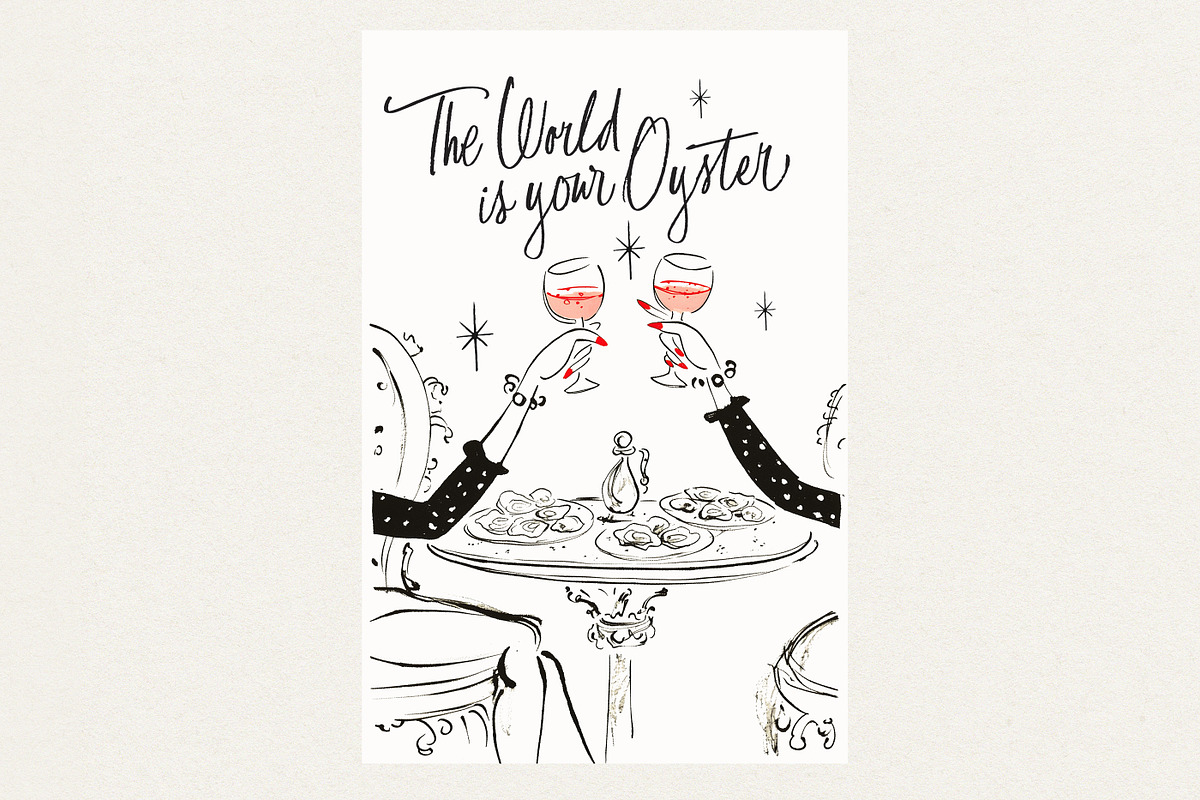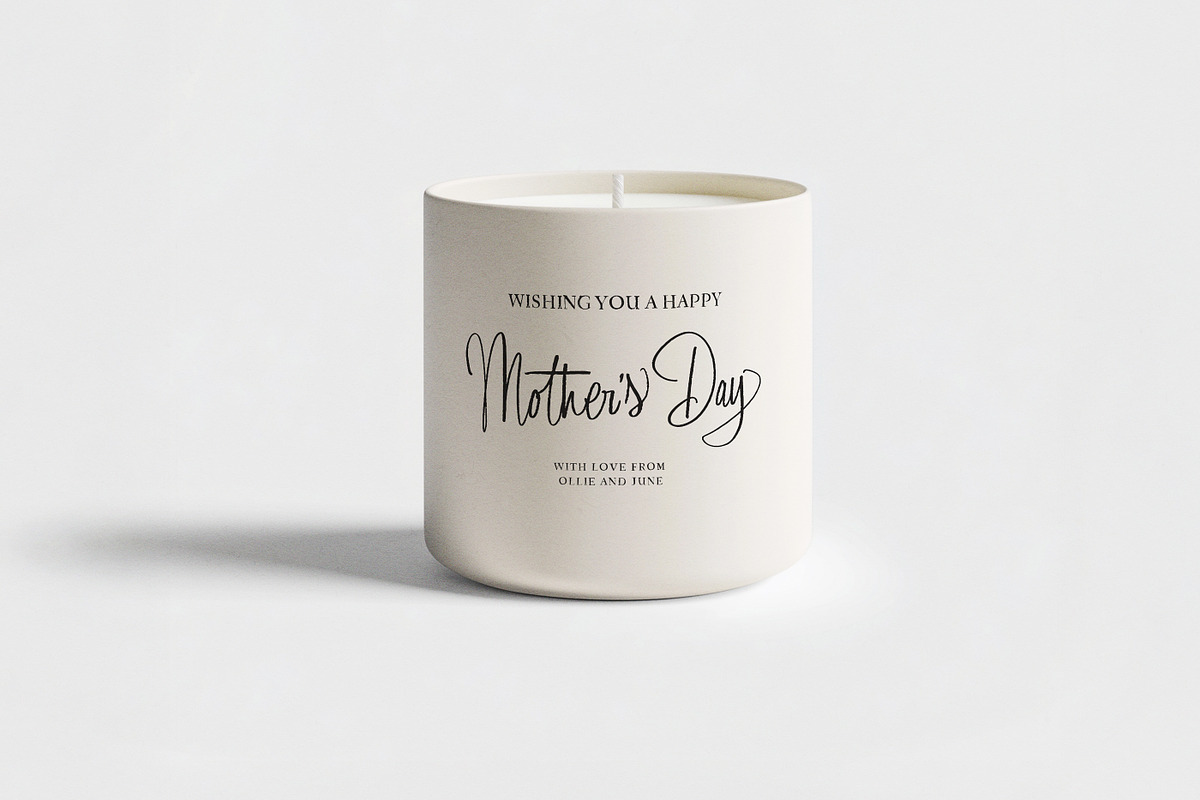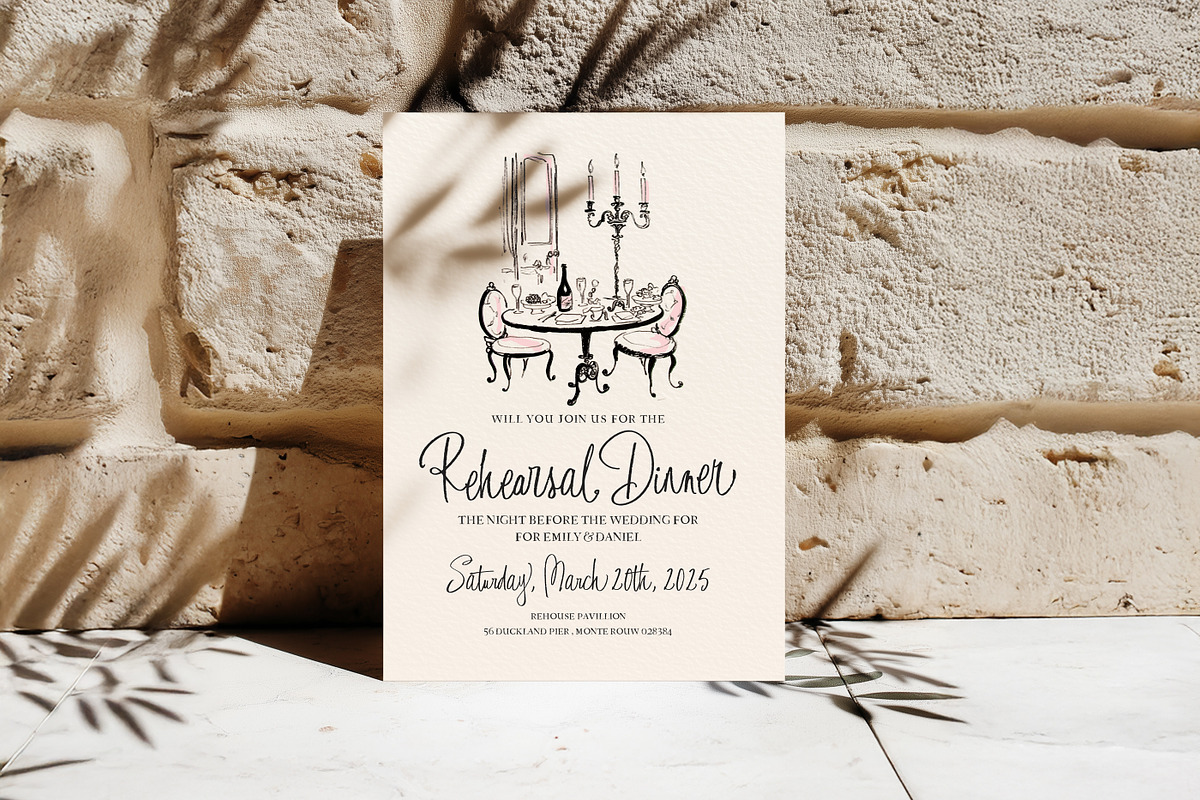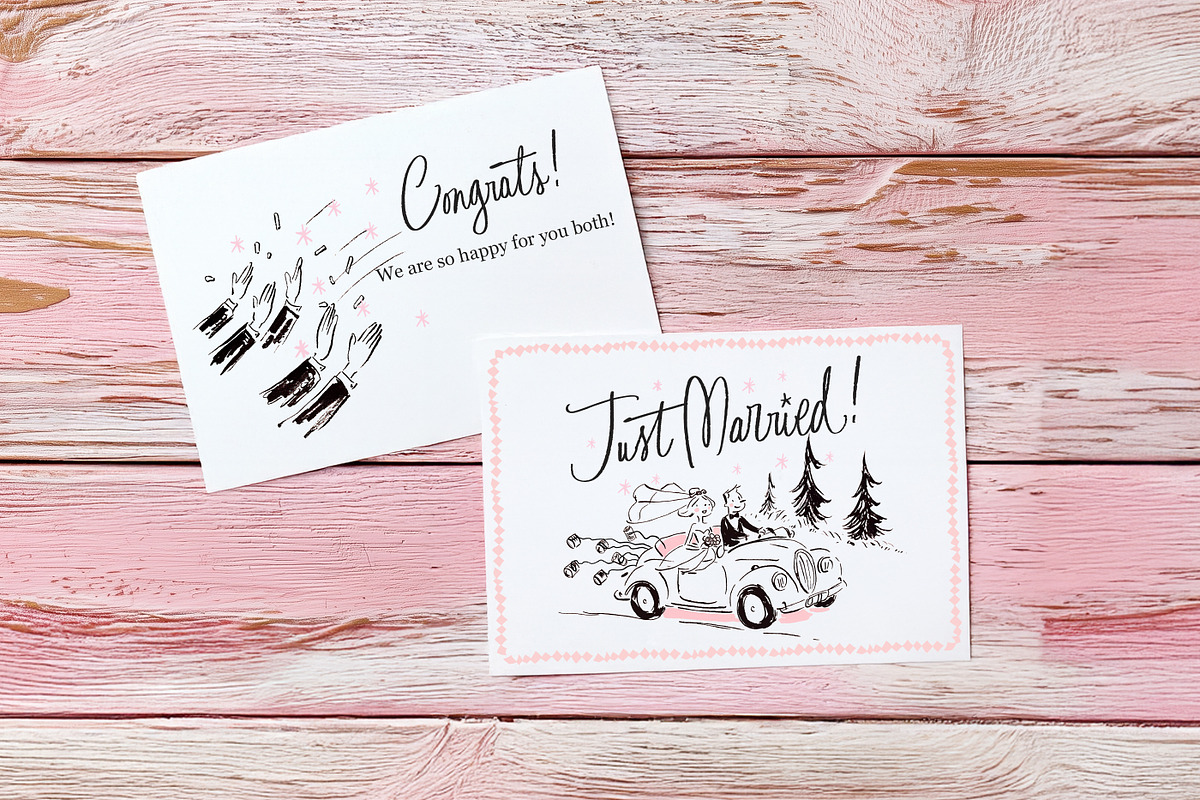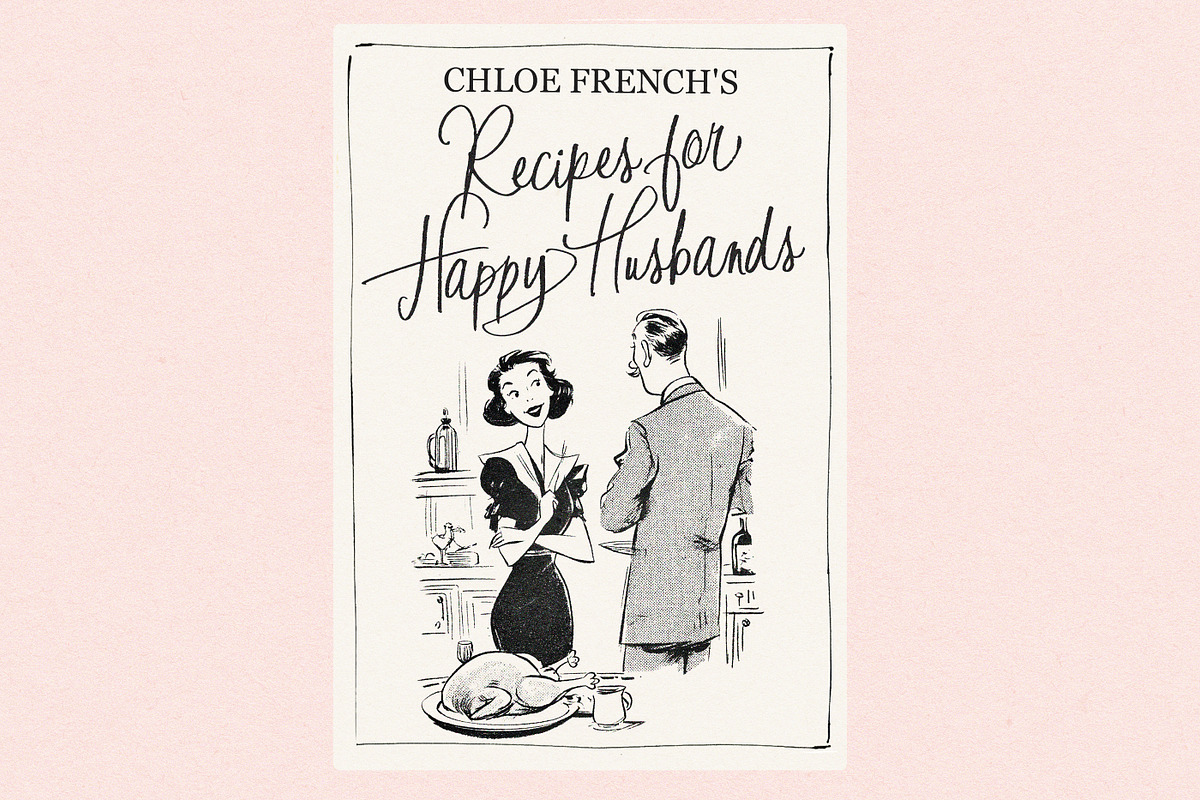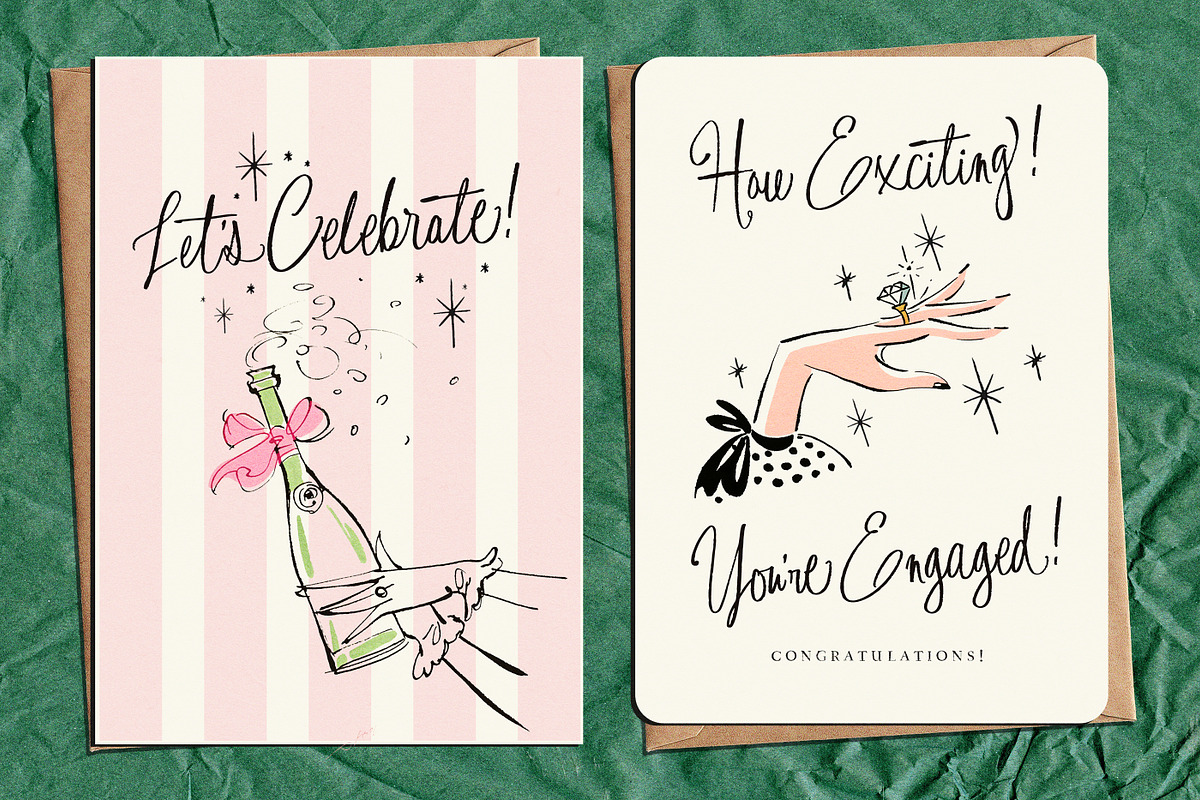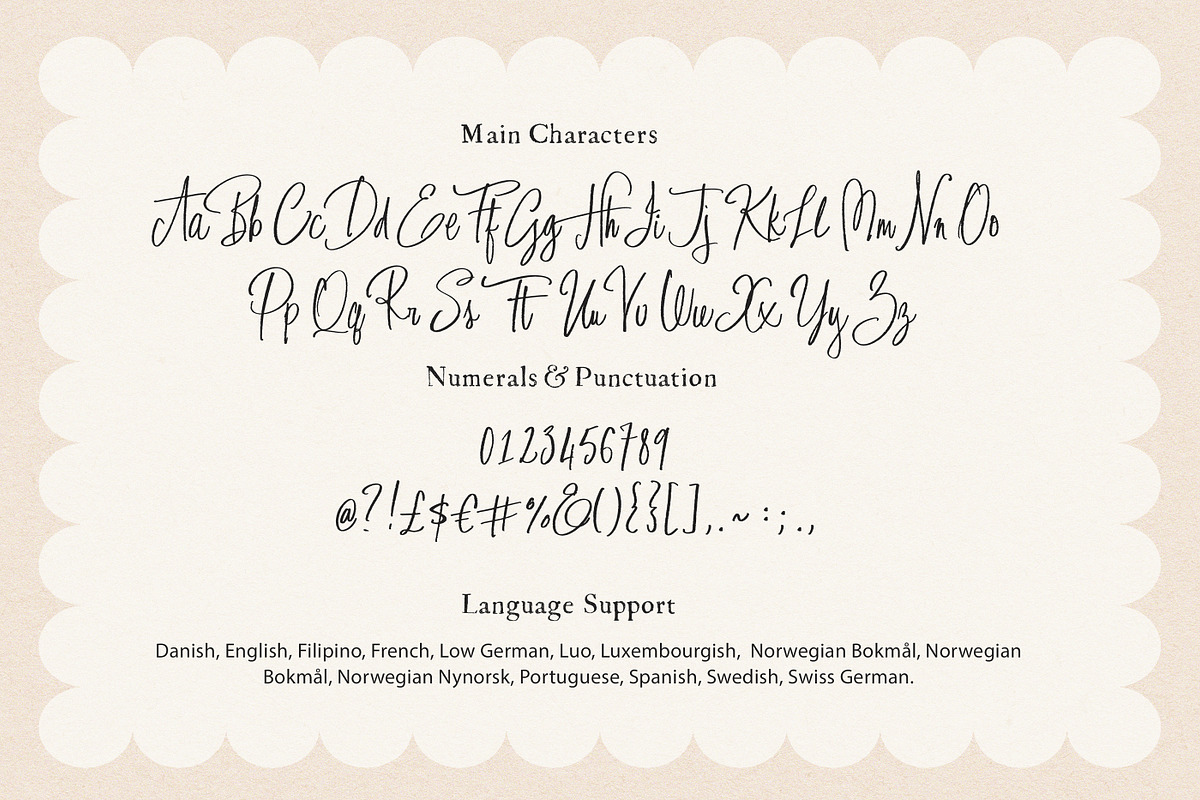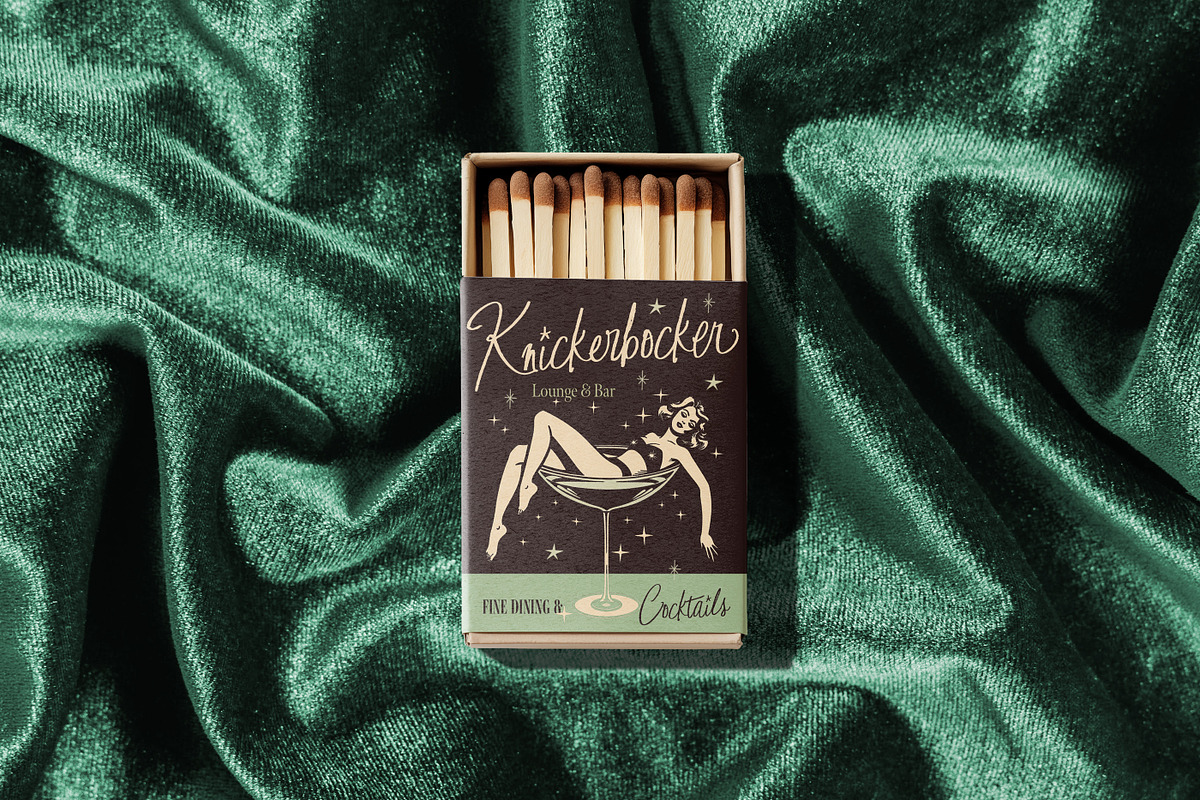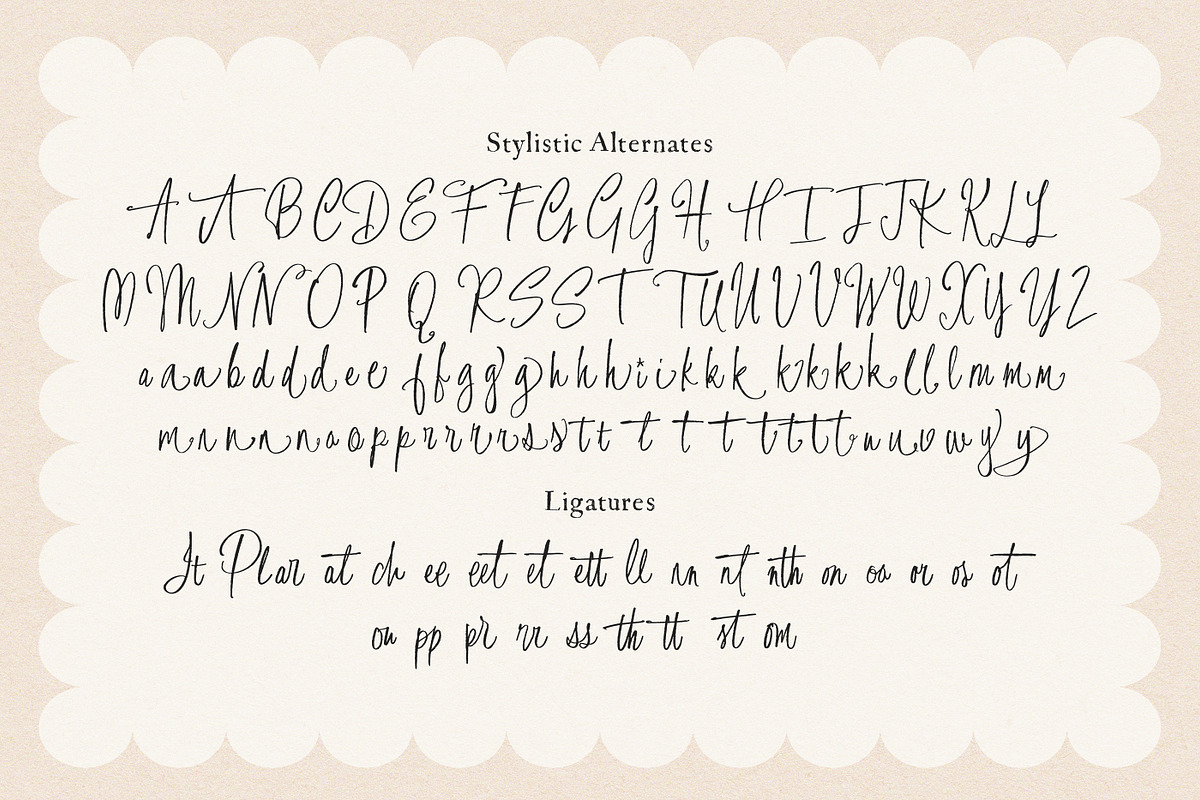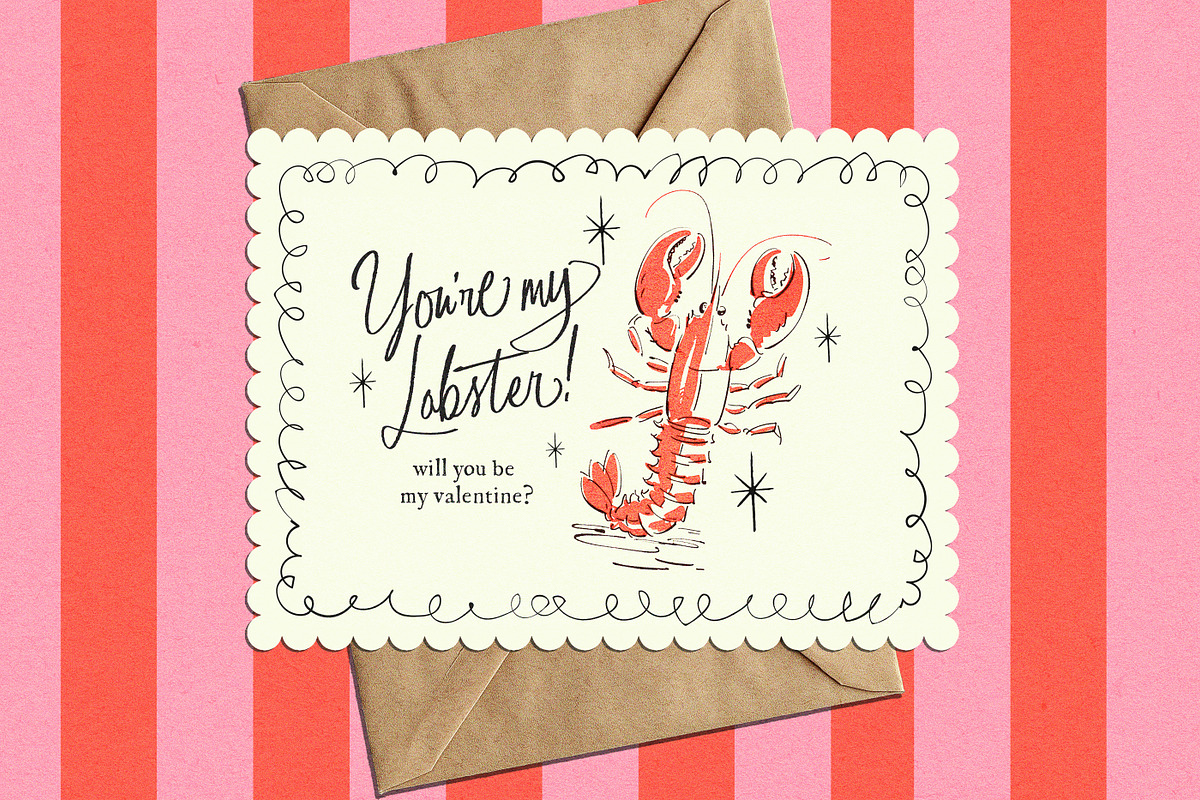
Pomp & Circumstance Script Font
Say hello to Pomp & Circumstance!
A Bouncy, Textured Retro 50s style Handwritten Script! Perfectly playful and light hearted - for greetings, Invites, Quirky Weddings, Fun Branding, Retro Designs and so much more :)
Opentype Features : Pomp is packed with extra fancy alternates and ligatures, so be sure to check out them out - they really bring the type to life!